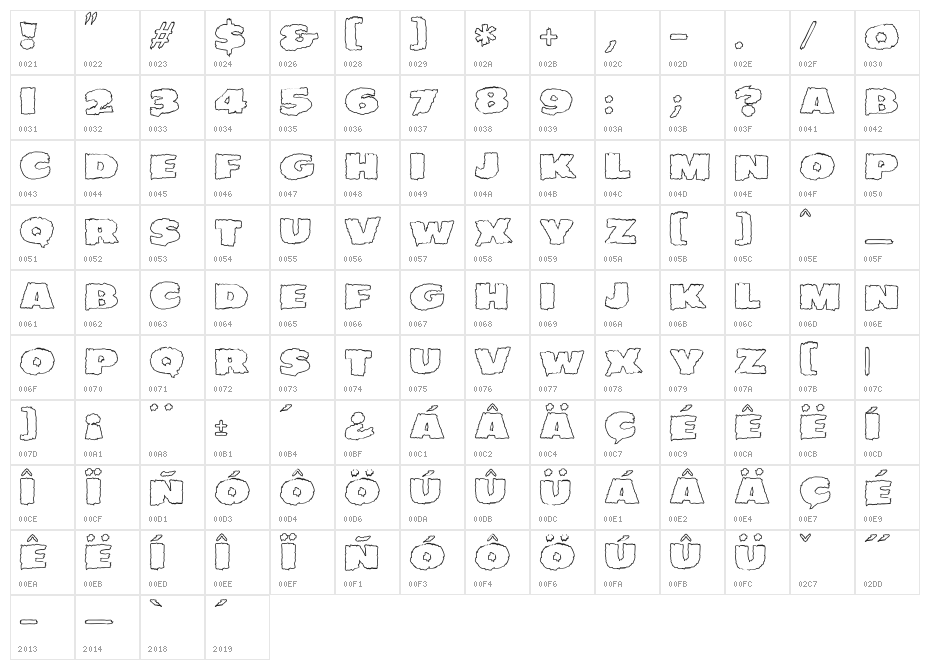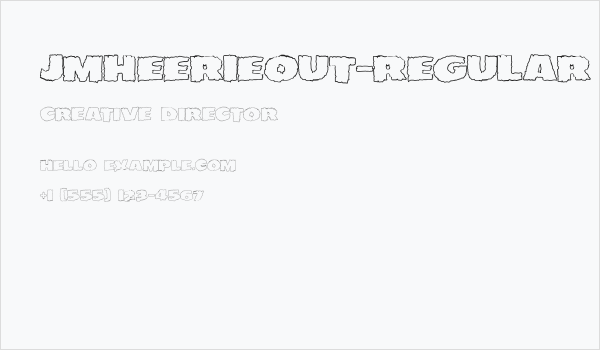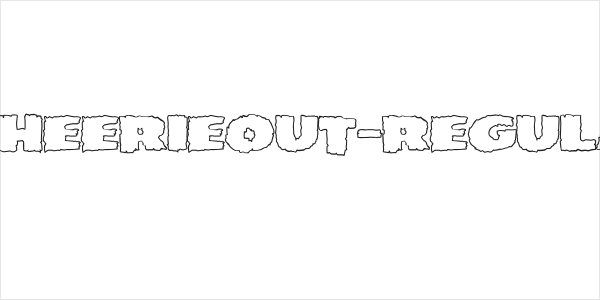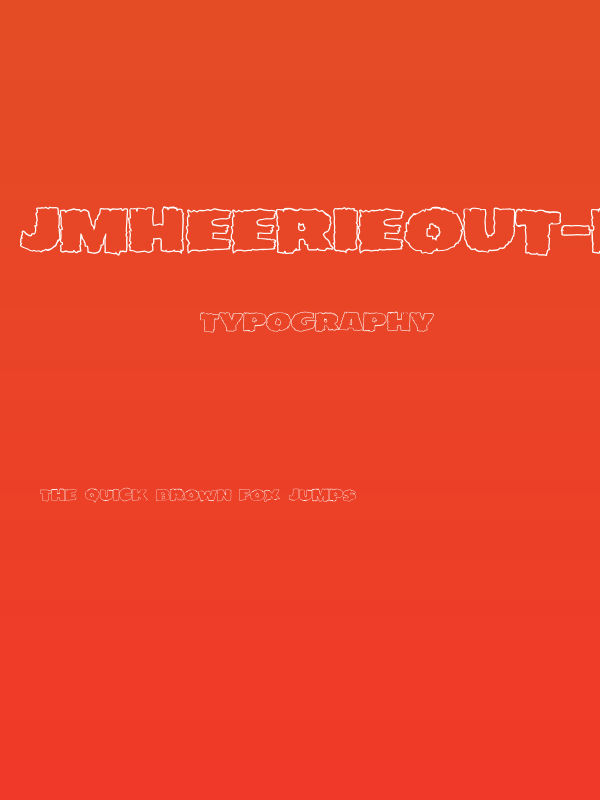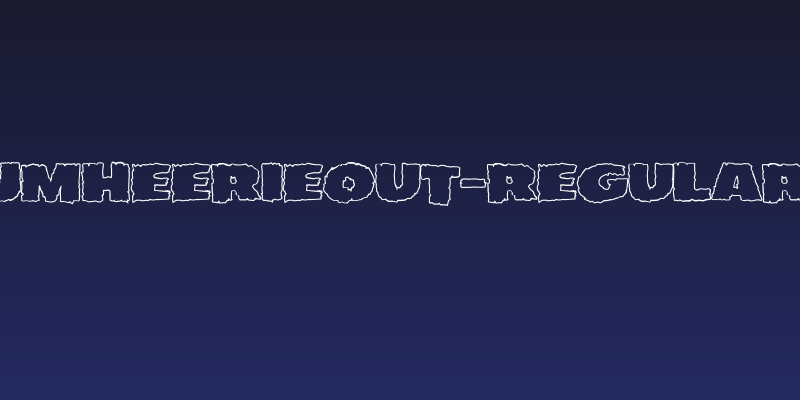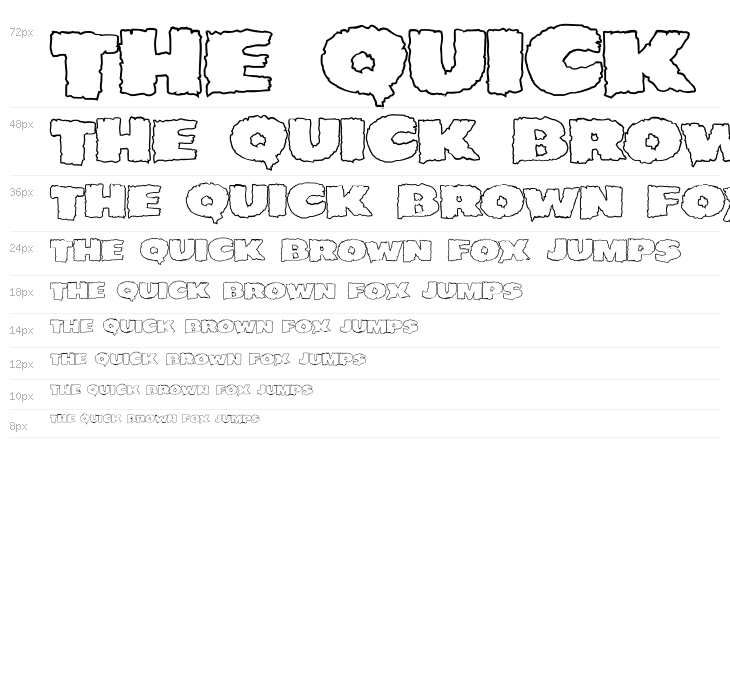
JMHEERIEOUT-Regular Font
This font features a playful and bold design with a rugged, textured outline that gives it a hand-drawn appearance. The characters are thick and substantial, with a slightly irregular edge that adds a dynamic and energetic feel. The uppercase and lowercase letters maintain a consistent style, while the numbers and special characters complement the overall aesthetic. This font's unique style makes it stand out, perfect for projects that require a fun and eye-catching typeface.
| Overall Style | Playful, Energetic |
| Proposed Projects | Ideal for children's books, comic strips, playful branding, and creative posters. |